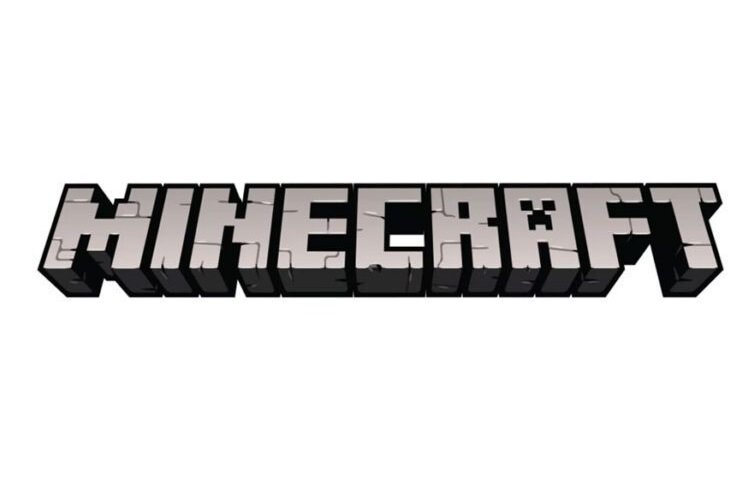
MineCrafter Font
MineCrafter is a high quality Techno Square font that is designed by Madpixel Designs and is available for free download and personal use. The free version provides all uppercase and lowercase letters and a few special characters too.
Based on the popular indie game “Minecraft”, this font is inspired by the main game logo with alternate Cracked version included and a selection of Minecon characters as well.